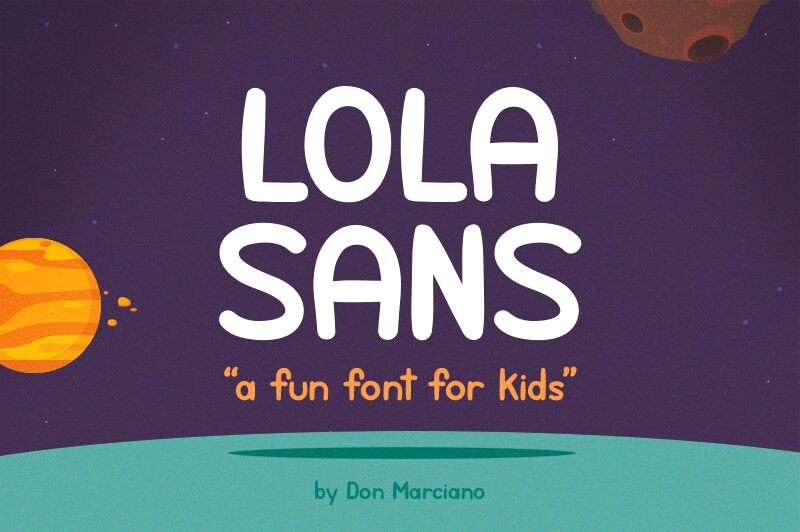
Lola Sans Bold
Introducing "Lola Sans Bold", a fun cartoon font designed by Juan Miguel Castillo. This display font is perfect for projects that need a touch of whimsy, such as children's books, birthday invitations, comic strips and educational apps. It adds a playful charm to any project and its bold style adds an extra level of impact. With its unique style and crisp lines, Lola Sans Bold is sure to make your project shine!